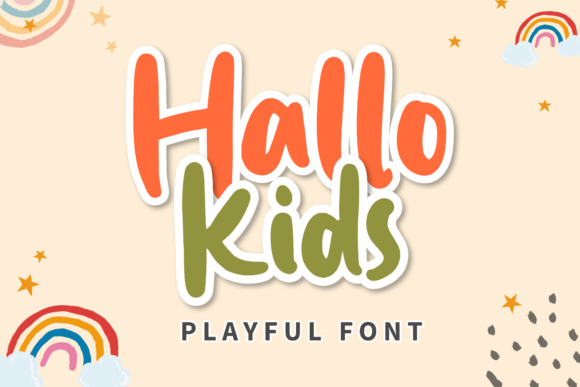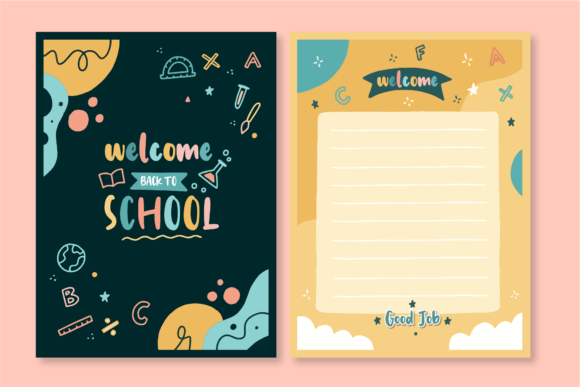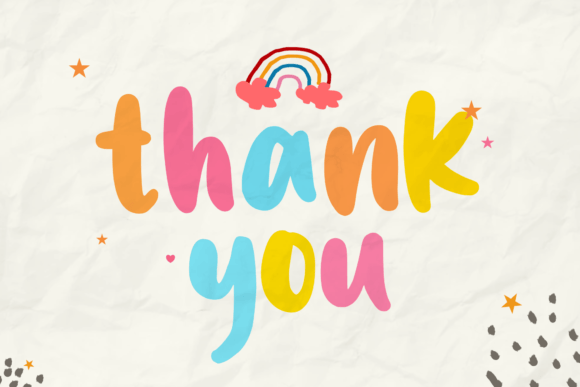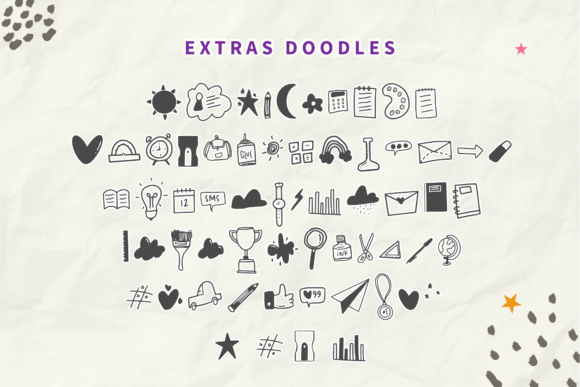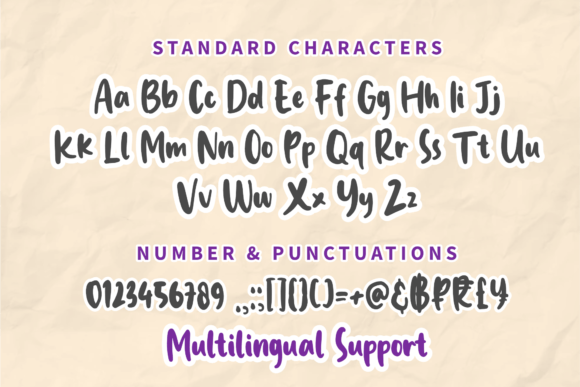
Unleashing Joy with the Hallo Kids Font
Have you ever stared at a blank page, searching for the perfect font to capture the essence of your next creative project? The thrill of discovering that perfect typeface can be exhilarating, and it’s a moment we’ve all experienced as designers. For me, it was the moment I stumbled upon the Hallo Kids Font – a simple, handwritten font that radiates joy and warmth.
Developed with the intention of making it easy to create engaging content for kids, this font has evolved into a versatile tool for designers of all levels. Its casual charm allows it to seamlessly blend into any context, whether it’s being used on a busy background or as a standalone headline. As a result, the Hallo Kids Font has become a valuable addition to any designer’s toolkit.
- Unique Characteristics: Hallo Kids Font features a playful, rounded design with exaggerated forms, making it perfect for children’s books, educational materials, and other applications where a friendly, approachable tone is desired.
- Character Set: The font includes a comprehensive set of characters, including uppercase and lowercase letters, numerals, punctuation marks, and a range of special characters.
- Font Style: This font is available in a single style, but it can be easily customized using font manipulation tools to create bold, italic, and other variations.
Designer Review: Hallo Kids Font
Overall, I think Hallo Kids Font is a cute and playful font that’s perfect for children’s content, such as nursery rhymes, kids’ books, and educational materials. Here are my thoughts on what works well and what doesn’t:
What works well: ✨ The font’s unique and whimsical design makes it perfect for adding a touch of magic to kids’ content. The bold and playful style is sure to capture the attention of young readers. ✨ The font is also highly customizable, with many options for adjusting the size, color, and style.
Limitations: ⚠️ One of the main limitations of Hallo Kids Font is its limited legibility at smaller sizes. While it’s perfect for headlines and titles, it may be difficult to read at smaller text sizes. ⚠️ Another limitation is the lack of support for non-Latin scripts, which may limit its use in multilingual content.
Overall Impression: I think Hallo Kids Font is a great choice for kids’ content, but it may not be the best option for more formal or serious content. With its playful design and high customization options, it’s sure to add a touch of fun and whimsy to any project.
- Perfect for children’s content, such as nursery rhymes and kids’ books
- Unique and whimsical design
- Limited legibility at smaller sizes
- Lack of support for non-Latin scripts
The “Hallo Kids Font” is ideal for creating playful and engaging content for children, such as:
Children’s books and storybooks
Kids’ party invitations and decorations
Children’s educational materials and worksheets
Remember to use the font in moderation and balance it with other design elements to avoid overwhelming the audience.